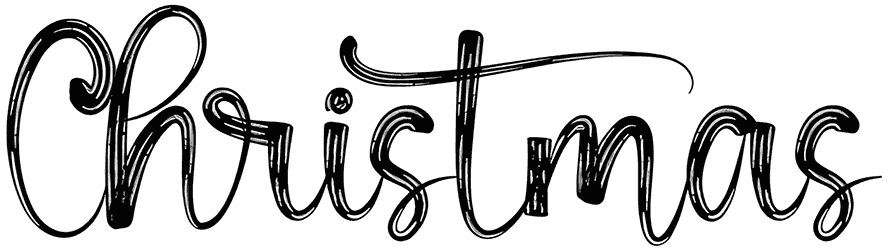
Christmas Font
If you’re already into brush fonts, you’re going to love Christmas for its innovative letterforms. The best thing is that you can count on its magical vibes to knock out everyone from your audience with its festive charm.
Of course, you don’t need us telling you what a great pair it can be for your Christmas designs on websites and posters, but we’re also going to make sure you take advantage of this Christmas font in your mugs, cards, apparel, etc.